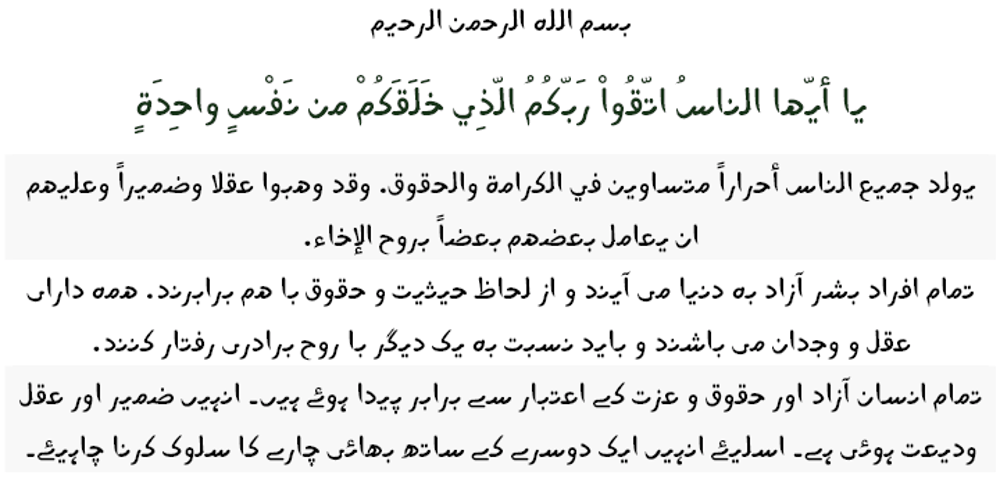
Silsilah Font Family was designed by Saad D. Abulhab and published by Arabetics. Silsilah contains 2 styles and family package options. The Silsilah family follows the guidelines of the Mutamathil Taqlidi type style. It has one glyph for every basic Arabic Unicode character or letter, as defined in Unicode Standards version 5.1, and one additional, final-position, glyph for each Arabic letter that is normally connected with other letters from both sides in traditional cursive Arabic strings. Silsilah employs variable x-height values. It includes all required Lam-Alif ligatures and uses ligature substitutions and selected marks positioning but it does not use any other glyph substitutions or forming. Text strings composed using types of this family are non-cursive with stand-alone isolated glyphs. Tatweel (or Kashida) glyph is a zero width space. Keying it before any glyph will display that glyph isolated form. Keying it before Alif Lam Lam Ha will display the Allah ligature. Silsilah family includes both Arabic and Arabic-Indic numerals; all required diacritic marks, Allah ligature, in addition to all standard English keyboard punctuations and major currency symbols. Fonts are available in regular and italic styles.